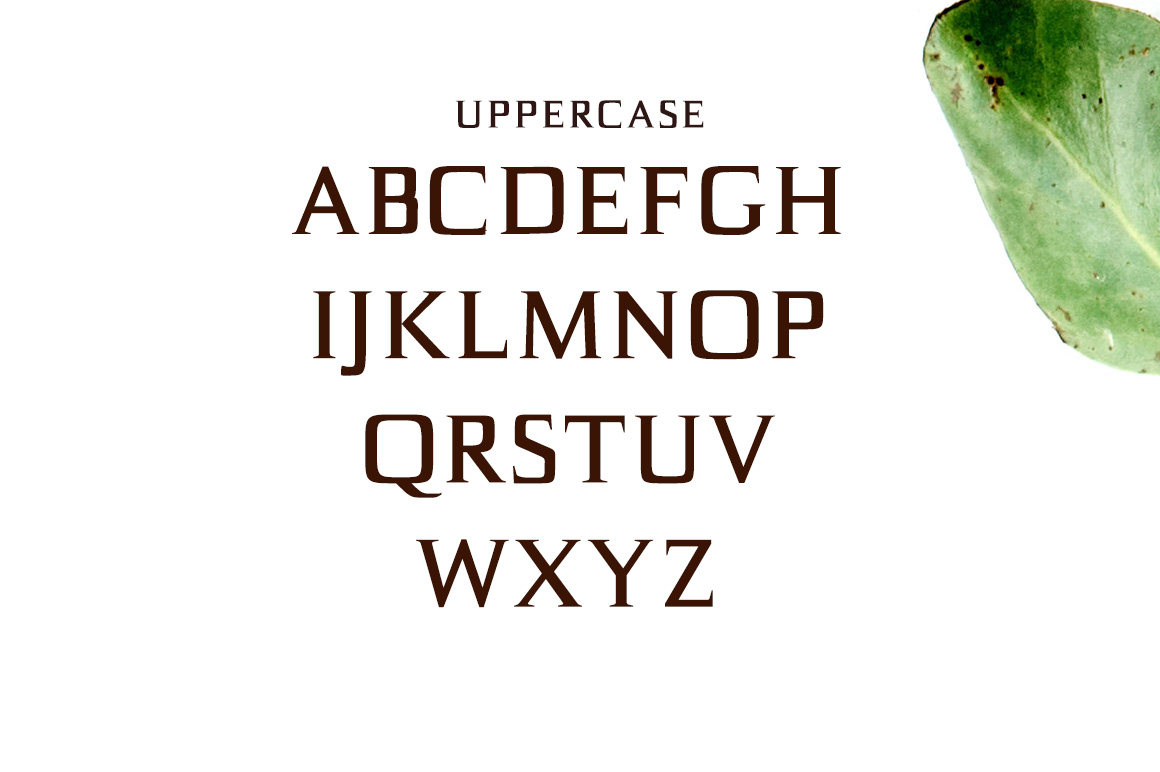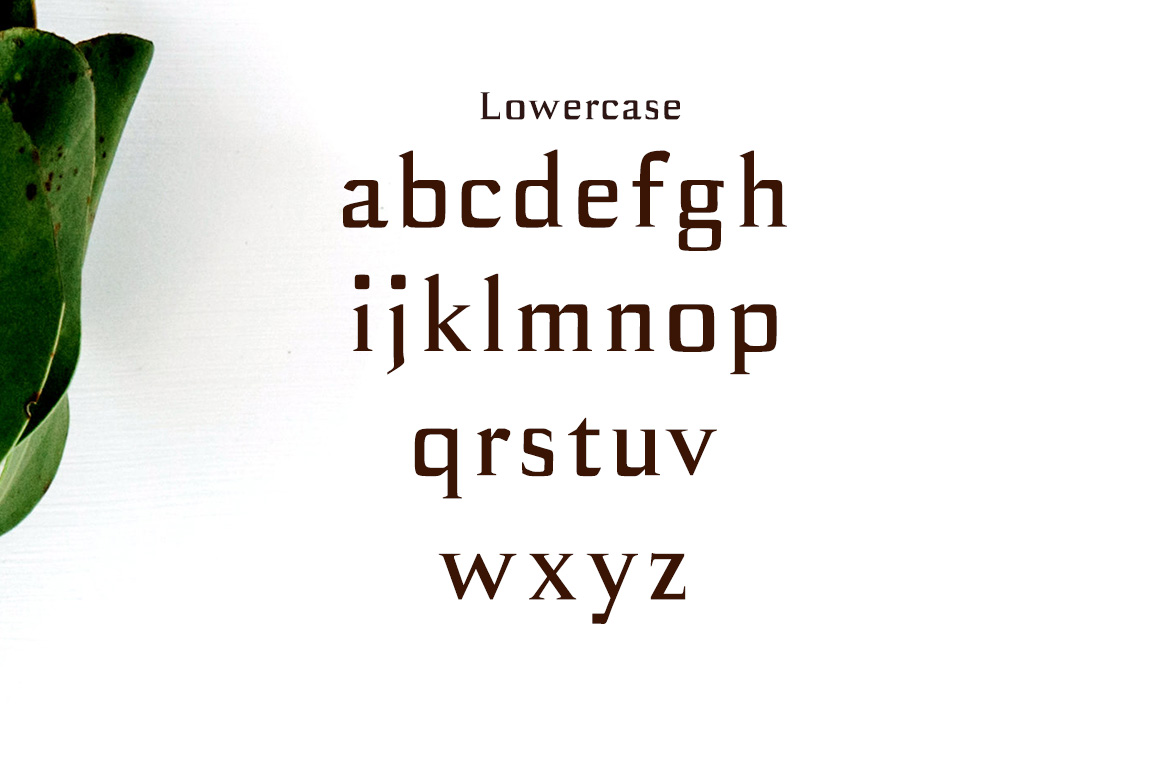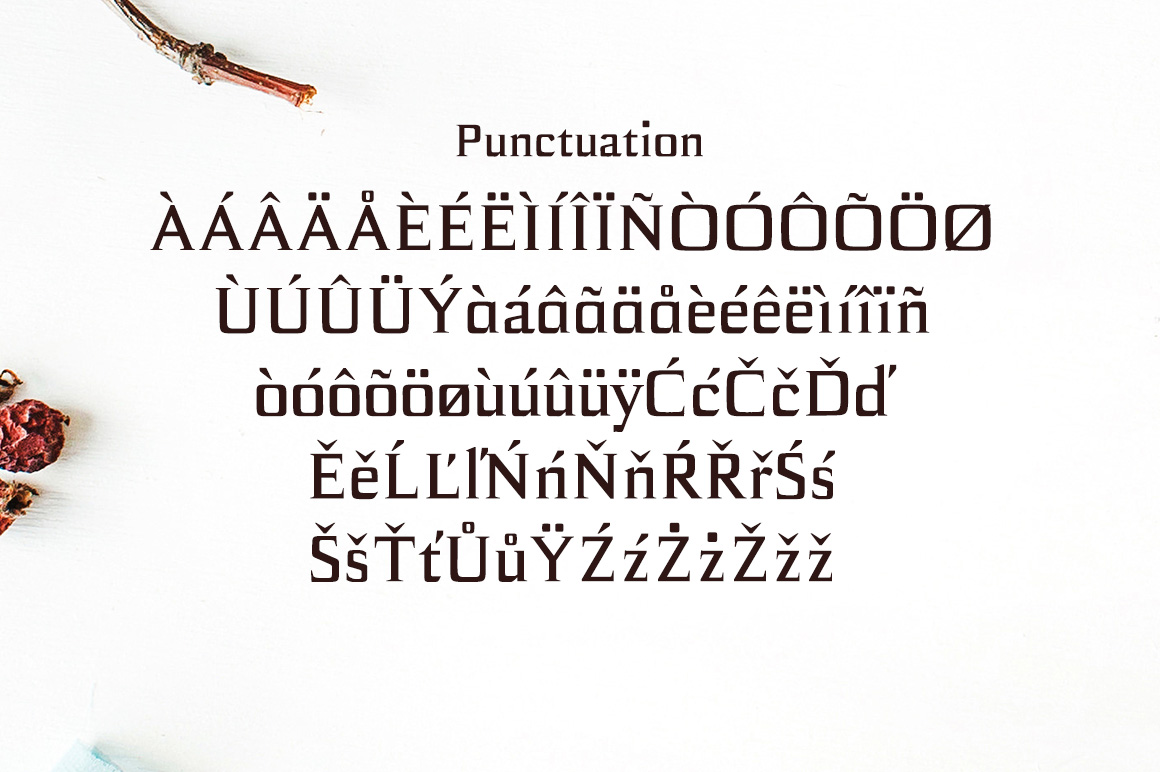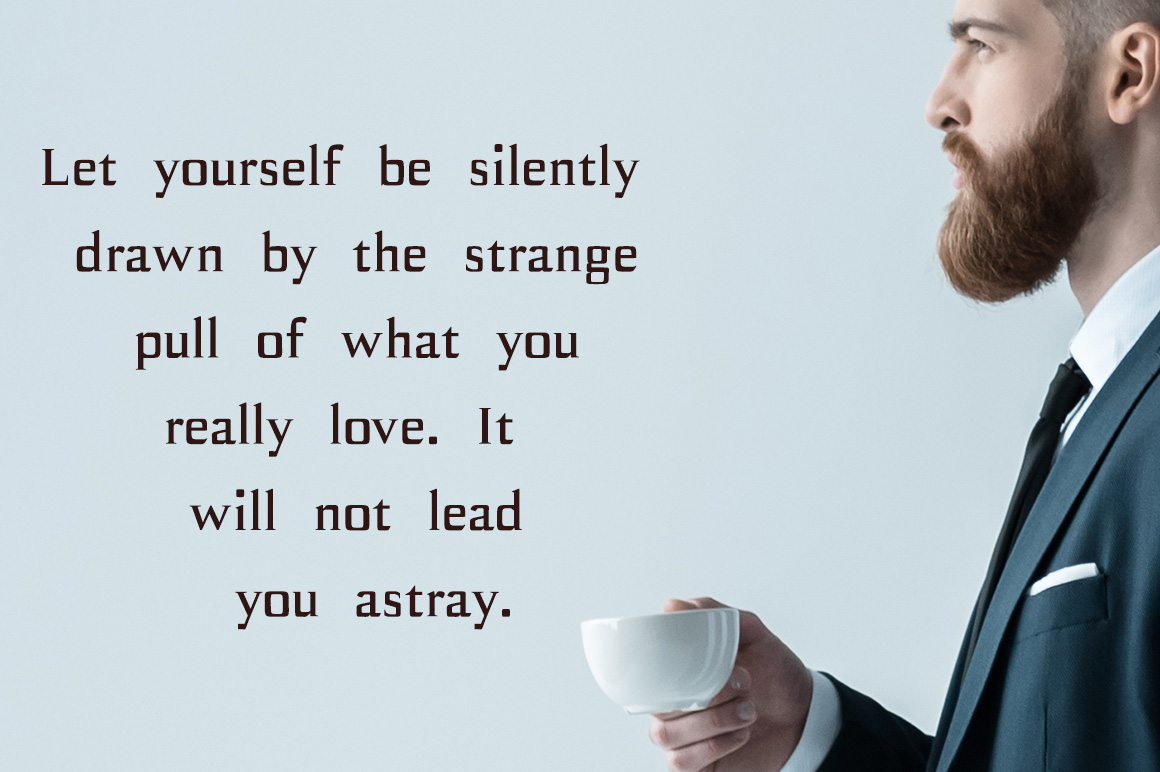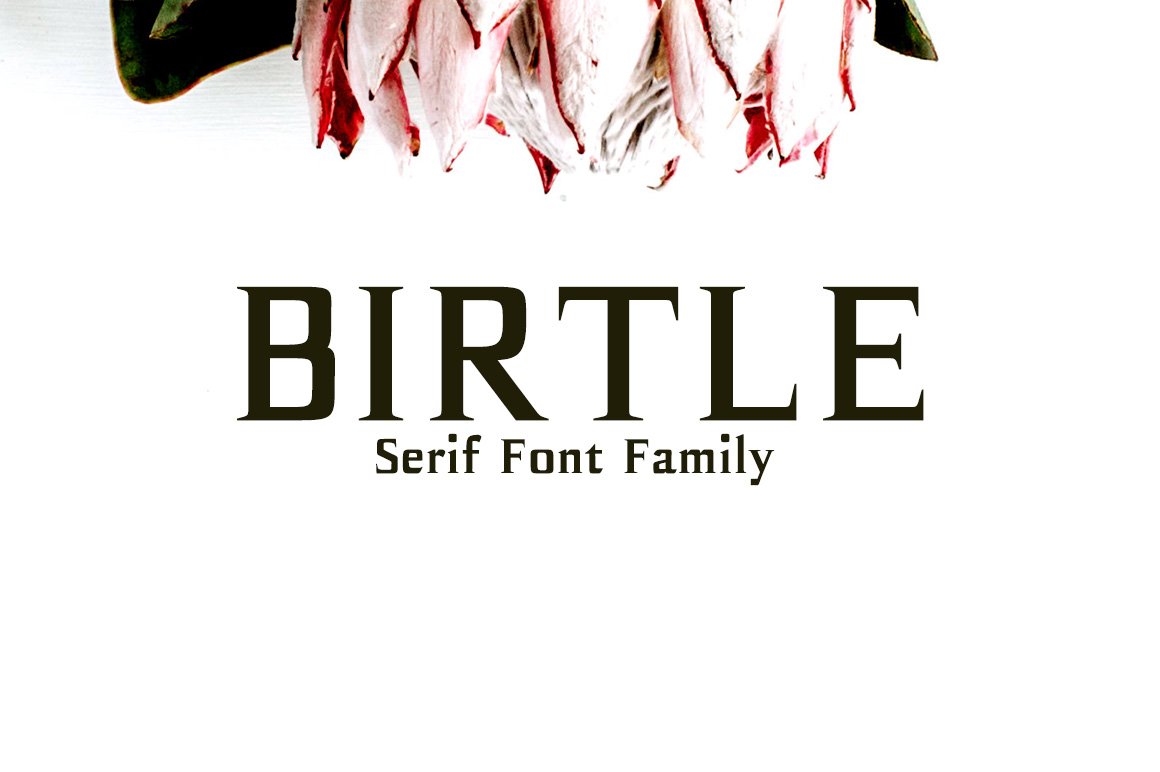
The Perfect Font for the Modern Designer
Have you ever stared at a blank page, trying to come up with the perfect font to bring your design to life? You’ve scrolled through countless options, but none of them seem to capture the essence of your vision. That’s where the Birtle Font comes in – a truly unique and contemporary typeface that’s about to change the game for designers everywhere.
Birtle Font is a modern, square serif font that effortlessly balances masculinity and delicacy. Its versatility makes it perfect for a wide range of projects, from bold and edgy to elegant and refined. Whether you’re a seasoned designer or just starting out, Birtle Font is a valuable addition to your font collection that will help you take your designs to the next level.
With its sleek and modern aesthetic, Birtle Font is sure to make a statement in any design project. Add it to your font library today and discover a whole new world of creative possibilities.
Birtle Font Key Features
- Unique Characteristics: Birtle Font is designed to be highly legible and versatile, making it suitable for a wide range of applications, from body text to display typography.
- Font Family: Birtle Font is part of a larger font family, offering a range of weights and styles to cater to different design needs.
Birtle Font Review
As a designer, I recently had the chance to work with the Birtle font, and I’m here to share my honest review.
Unique and Distinctive Style: Birtle has a distinctive style that sets it apart from other fonts. Its unique combination of geometric and organic elements makes it perfect for projects that need a touch of personality.
High-Quality Rendering: The font renders beautifully at various sizes and resolutions, making it a great choice for digital projects.
Large Character Set: Birtle comes with a wide range of characters, including ligatures, ornaments, and swashes, which makes it a great option for designers who need a lot of customization options.
Limited Legibility: While Birtle is great for visual impact, it can be challenging to read at small sizes or in situations where legibility is crucial.
Not Suitable for Body Text: Due to its ornate design, Birtle is best suited for headings, titles, and other display text, rather than body text.
Overall, I think Birtle is a great addition to any designer’s toolkit. While it has some limitations, its unique style and high-quality rendering make it a great choice for projects that need a touch of personality and visual interest.
The Birtle font is ideal for:
- Displaying headings and titles in a unique and elegant way.
- Creating a vintage or retro-inspired design aesthetic.
- Adding a touch of sophistication to your branding and marketing materials.